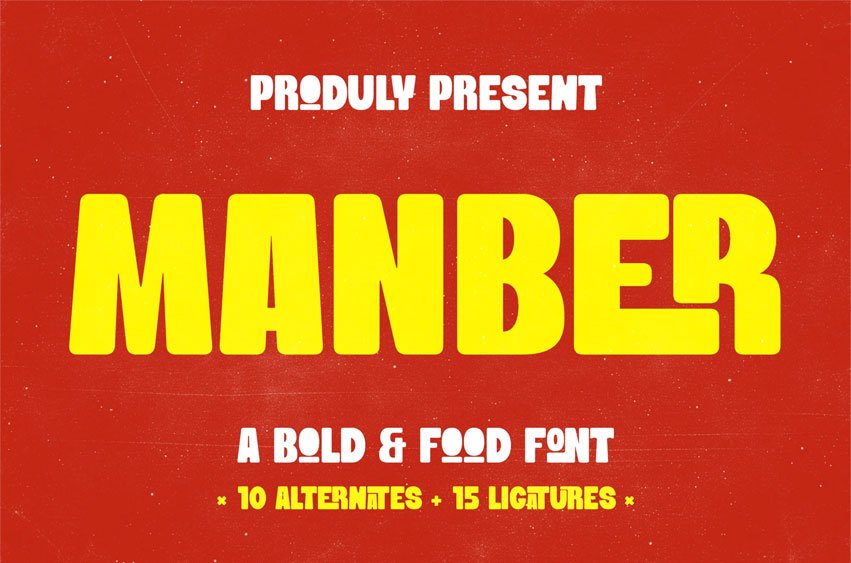
Manber Font is a bold and chunky display font designed to make a strong visual impact. With its thick letterforms, retro inspired style, and playful personality, this font is perfect for eye catching headlines and expressive branding.
Inspired by vintage posters and modern food packaging, Manber delivers a fun and energetic look that works beautifully across a wide range of creative projects. Its heavy structure ensures maximum readability while maintaining a unique and memorable character.
Feature:
- Uppercase
- Lowercase
- Ligatures
- Numerals
- Punctuation
Perfect For:
- Food and beverage branding
- Burger & snack packaging
- Poster design
- Café and restaurant menus
- Street food branding
- Social media ads
- Product labels
- Logo design